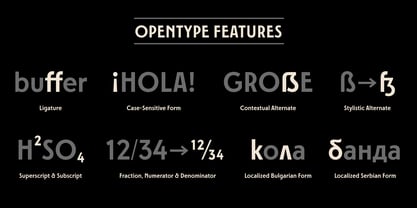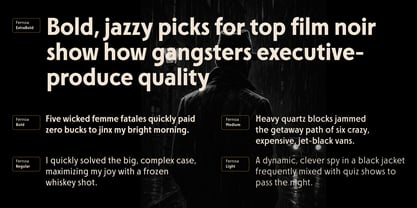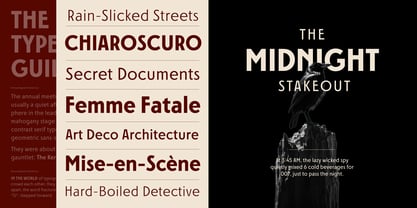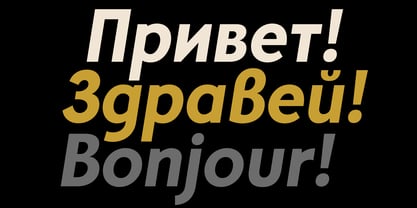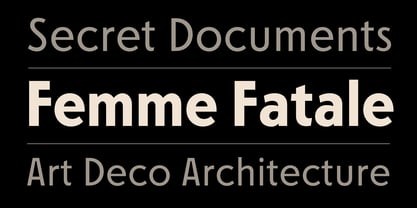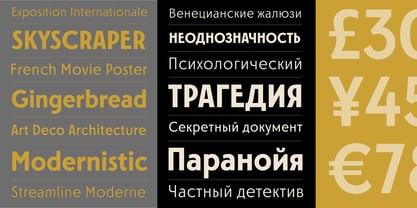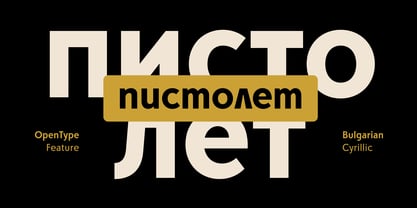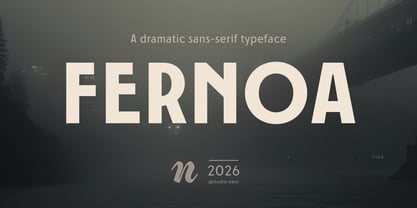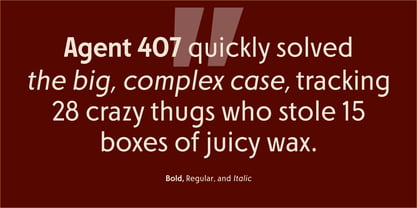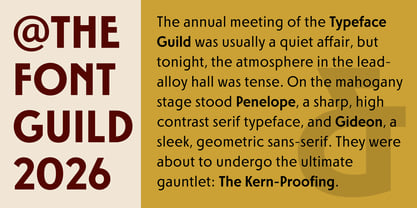
Fernoa
by Nasir Udin
Introducing Fernoa — A Dramatic Sans-Serif for Cinematic Storytelling
Evoke mood, mystery, and timeless sophistication with Fernoa, a high-impact sans-serif typeface designed to make bold visual statements. Drawing inspiration from classic film noir, mid-century Art Deco architecture, and vintage espionage thrillers, Fernoa strikes a perfect balance between geometric structure and dramatic personality.
From razor-sharp terminal cuts to commanding display weights, Fernoa delivers an unmistakably powerful aesthetic. Whether set in extra-bold headlines or sleek, elegant light weights, it maintains exceptional clarity and tension. Complete with full Cyrillic support, Fernoa offers global versatility for projects that demand presence and depth.
Key Features
- High-Impact Display Weights: The bold weights feature tight, punchy letterforms with razor-sharp terminal cuts and distinct geometric proportions (such as the sweeping leg of the 'R' and wide circular 'O').
- Versatile Range: Transitions seamlessly from commanding, strong display titles to clean, highly legible lighter weights suitable for subheadings and supporting text.
- Multilingual & Cyrillic Support: Includes extended character sets—including full Cyrillic script integration—maintaining the same sharp noir character across diverse languages.
- Dramatic Aesthetic: Built to capture mood, mystery, and elegance, drawing on high-contrast visual storytelling reminiscent of chiaroscuro lighting.
Ideal Applications
- Editorial & Publishing: Book covers, magazine spreads, movie posters, and title cards.
- Branding & Identity: Logos, packaging, and high-fashion or luxury brand design requiring strong cinematic flair.
- Digital & UI: High-impact website headers, hero section typography, and campaign graphics.
Designers: Nasir Udin
Foundry: Nasir Udin